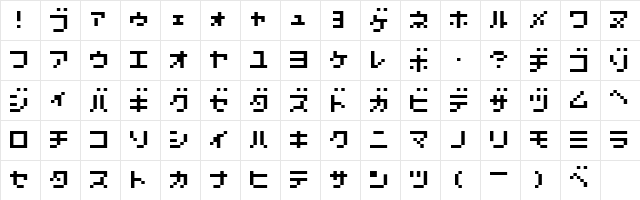
7pxkbus Regular
Design Context for 7pxkbus
7pxkbus is a composed and adaptable typeface that performs quietly and consistently across a wide range of design contexts.